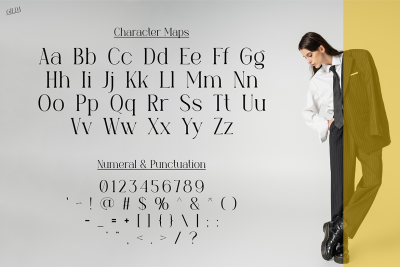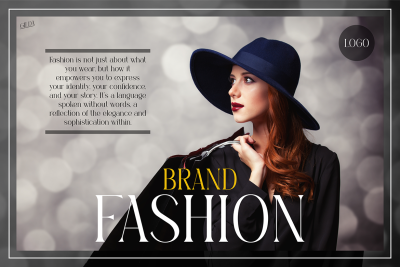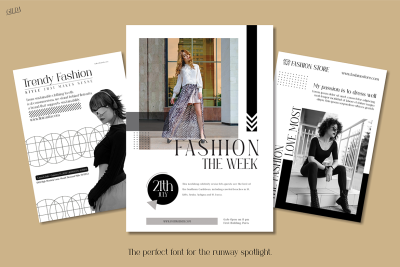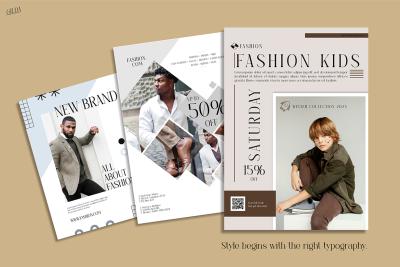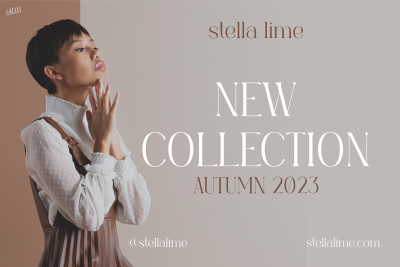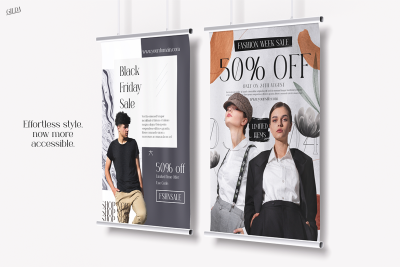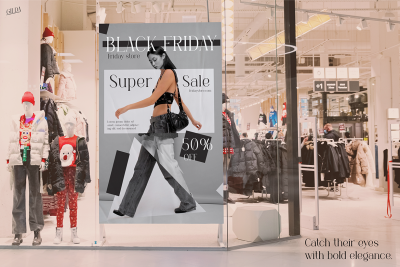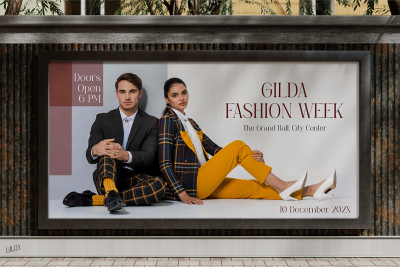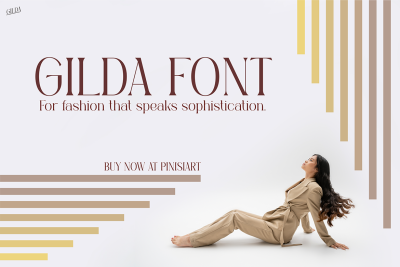
Instagram Font Gilda is a sophisticated serif typeface that combines elegance with functionality. Known for its high-contrast strokes and refined curves, this font is perfect for creating designs that demand attention. Moreover, its clean and timeless aesthetic makes it suitable for a wide range of creative projects.
What sets Gilda apart is its modern yet versatile design. It strikes the perfect balance between simplicity and style, ensuring it adapts well to both digital and print mediums. Whether youโre working on Instagram posts, captions, or branding materials, Gilda ensures your content stands out. Furthermore, the font maintains excellent legibility at any size, making it practical for longer text while retaining its beauty.
In addition, Gildaโs design reflects sophistication and professionalism. Its structured letterforms exude confidence, making it an excellent choice for high-end projects. With every detail carefully crafted, Gilda creates a lasting impression that resonates with audiences who appreciate elegance and class.
Instagram Font Gildaย Who Is It Suitable For?
Instagram Font Gilda is ideal for creatives, businesses, and influencers aiming to elevate their visual content. For instance, luxury brands can use it to enhance their product imagery and promotional materials. Similarly, fashion designers and beauty bloggers can rely on Gilda to add a premium feel to their Instagram profiles.
In addition, event planners and wedding photographers can use this font to create stylish invitations or highlight reels. Its timeless look complements formal and celebratory themes alike. Furthermore, small business owners looking to refine their branding will find Gilda a reliable choice for logos, menus, and signage.
Graphic designers will also appreciate Gildaโs adaptability. It works exceptionally well for editorial layouts, website headers, and marketing collateral. Its elegant design pairs beautifully with minimalist aesthetics, offering creative flexibility for modern designs.
Ultimately, Instagram Font Gilda is for anyone who values sophistication in their visual identity. Whether youโre an entrepreneur, a designer, or a social media enthusiast, this font empowers you to communicate your message with confidence and style. With Gilda, every project feels polished and professionally executed.